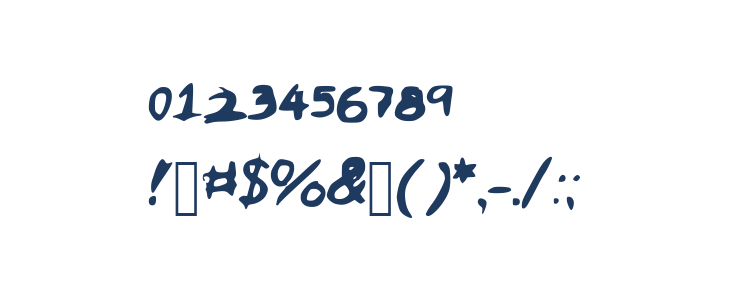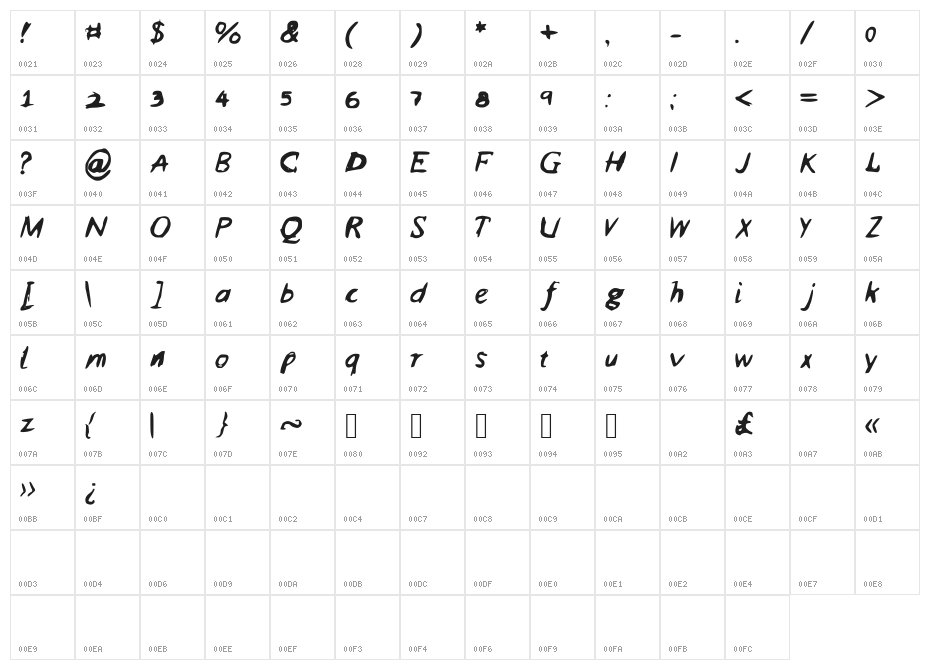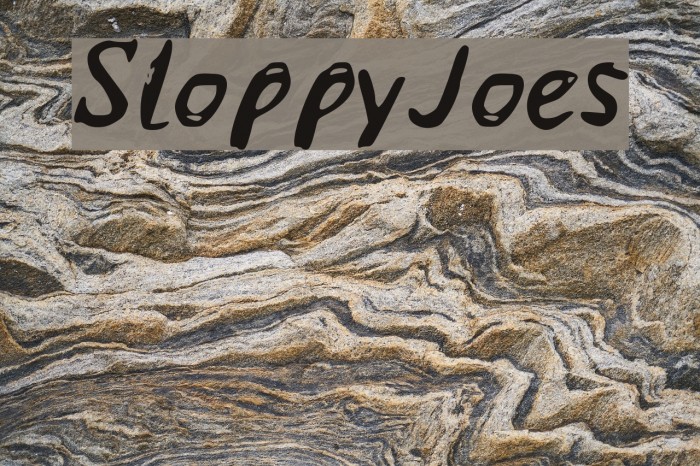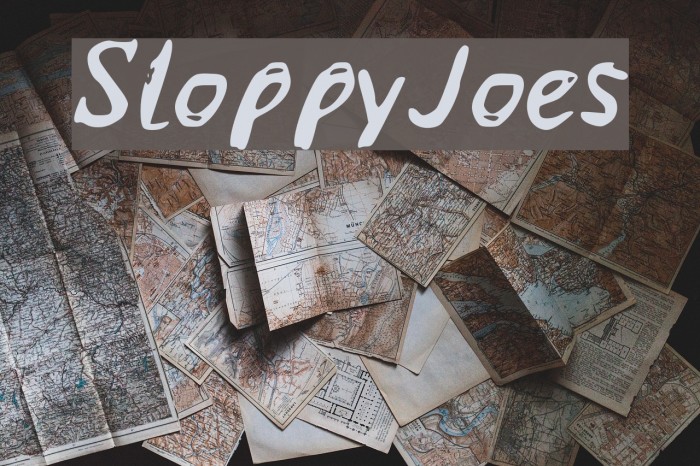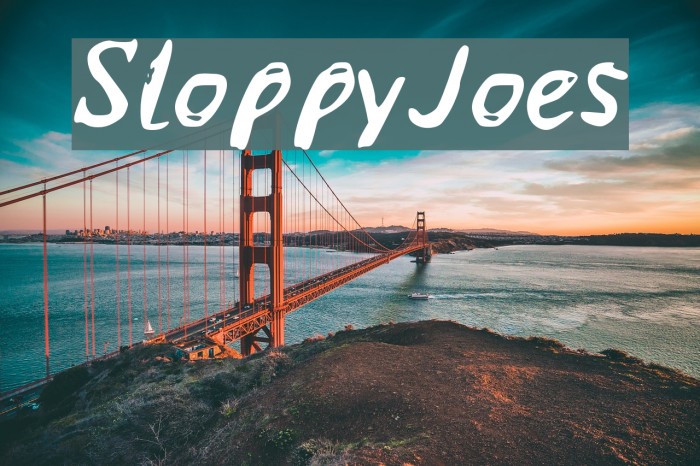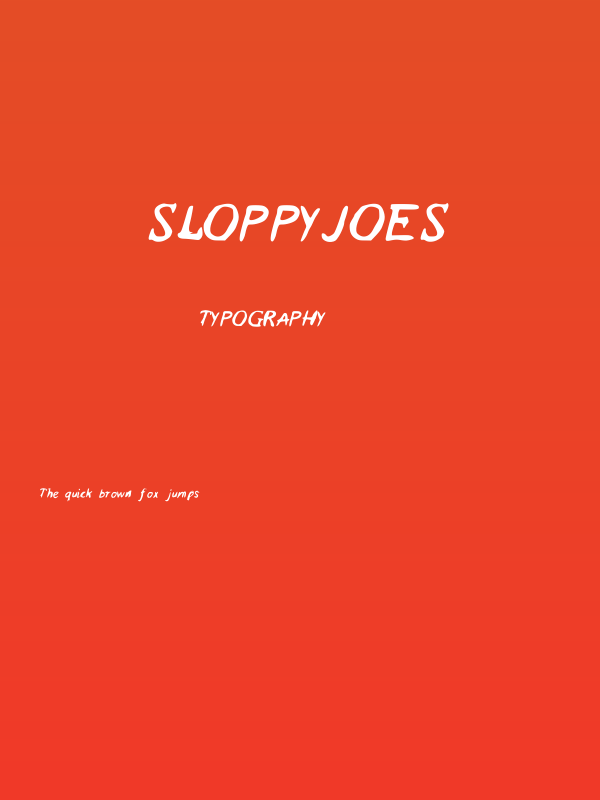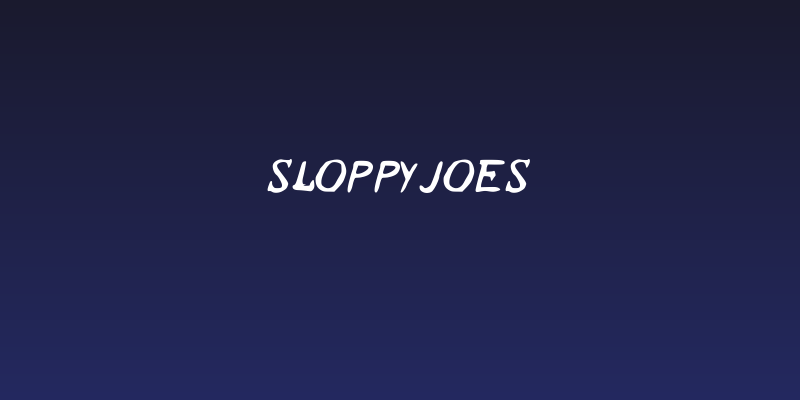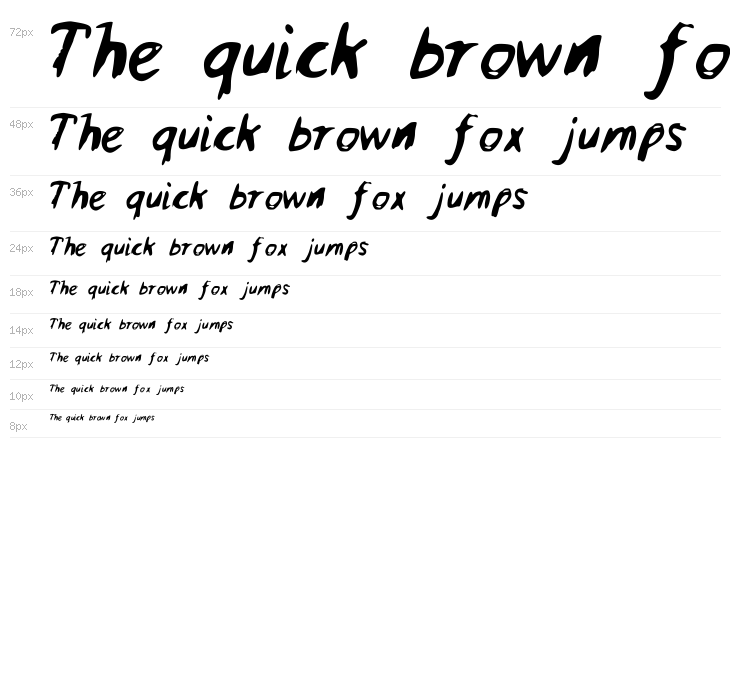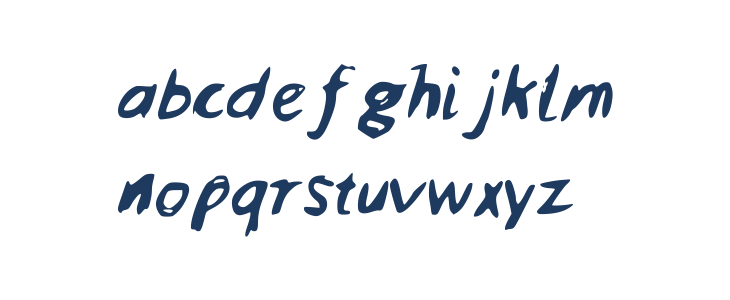
SloppyJoes Font
SloppyJoes Description
This font features a bold and expressive handwritten style, characterized by its dynamic and fluid strokes. The letters have a playful and informal appearance, with varying thickness that adds a sense of movement and energy. The uppercase letters are slightly more structured, while the lowercase letters exhibit a more casual and relaxed form. The numerals and special characters maintain the same lively aesthetic, making the font suitable for creative and artistic projects. Its unique style captures attention and conveys a sense of spontaneity and creativity.
| Proposed Projects | Ideal for creative projects such as posters, invitations, and artistic branding. |